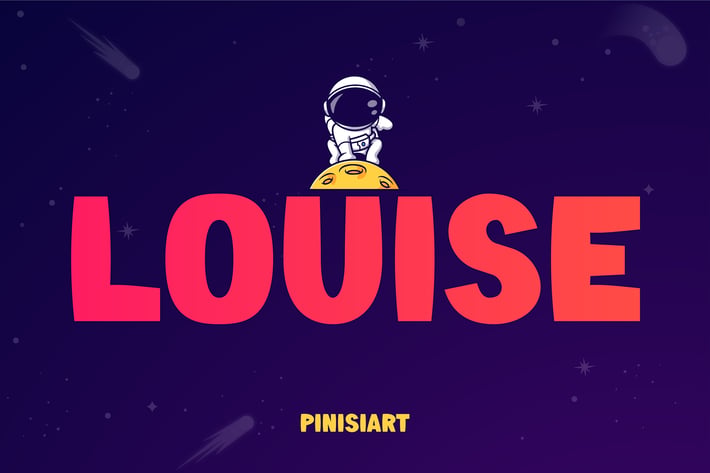
Kids Font - Louise
LOUISE is a strong and bold display font with a playful personality, perfect for standout designs. Its chunky, eye-catching letterforms make it great for titles, headlines, and projects that need a fun and modern touch. Combined with space-inspired elements, it feels youthful and adventurous.
Market Applications
Children’s Space-Themed Projects
Perfect for posters, book titles, and story covers about space, planets, or exploration.
Event & Party Designs
Great for birthday invitations, banners, and decorations that focus on fun and bold visuals.
Games & Digital Designs
Perfect for playful UIs, logos, and titles in video games, especially those with bold graphics.
Merchandise
Works beautifully for t-shirts, bags, mugs, and other products that require eye-catching typography.
Social Media & Branding
Suitable for brands and campaigns targeting a youthful or adventurous audience.